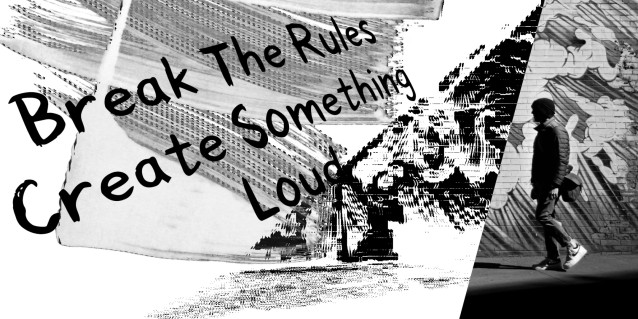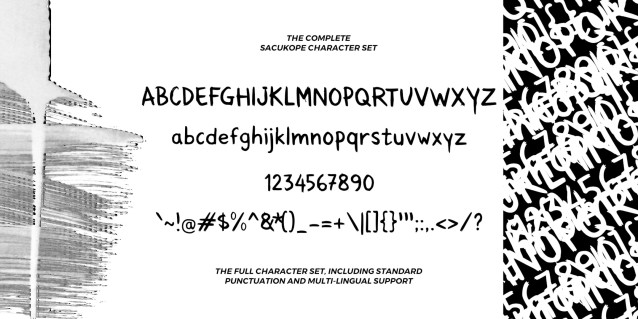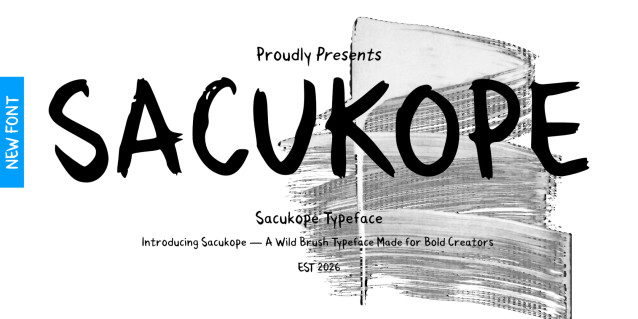
Sacukope Brush Display Typeface Font
Sacukope is a bold hand-painted brush font crafted to bring energy, personality, and artistic expression into your designs. Inspired by raw brush strokes and authentic handwritten lettering, this typeface delivers a natural, dynamic look that feels both modern and rebellious.
With its rough edges, organic shapes, and expressive character, Sacukope is perfect for branding projects, streetwear designs, music posters, album covers, social media graphics, packaging, quotes, logos, and any creative work that demands attention. Whether you’re creating a bold headline or a standout visual identity, Sacukope adds a unique handcrafted touch that makes every word feel alive.
Designed to be versatile and eye-catching, Sacukope works beautifully in both digital and print applications, helping your projects stand out with confidence and style.
Sacukope is a bold, hand-painted brush display typeface created by Meisuseno, available on Payhip. Crafted to inject raw energy, personality, and genuine artistic expression into your designs, this font is heavily inspired by authentic handwritten lettering and organic, high-textured brush strokes. It delivers a dynamic, rebellious, and natural aesthetic that demands instant attention. Sacukope features rough edges and expressive characters that work beautifully in both regular and italic styles.